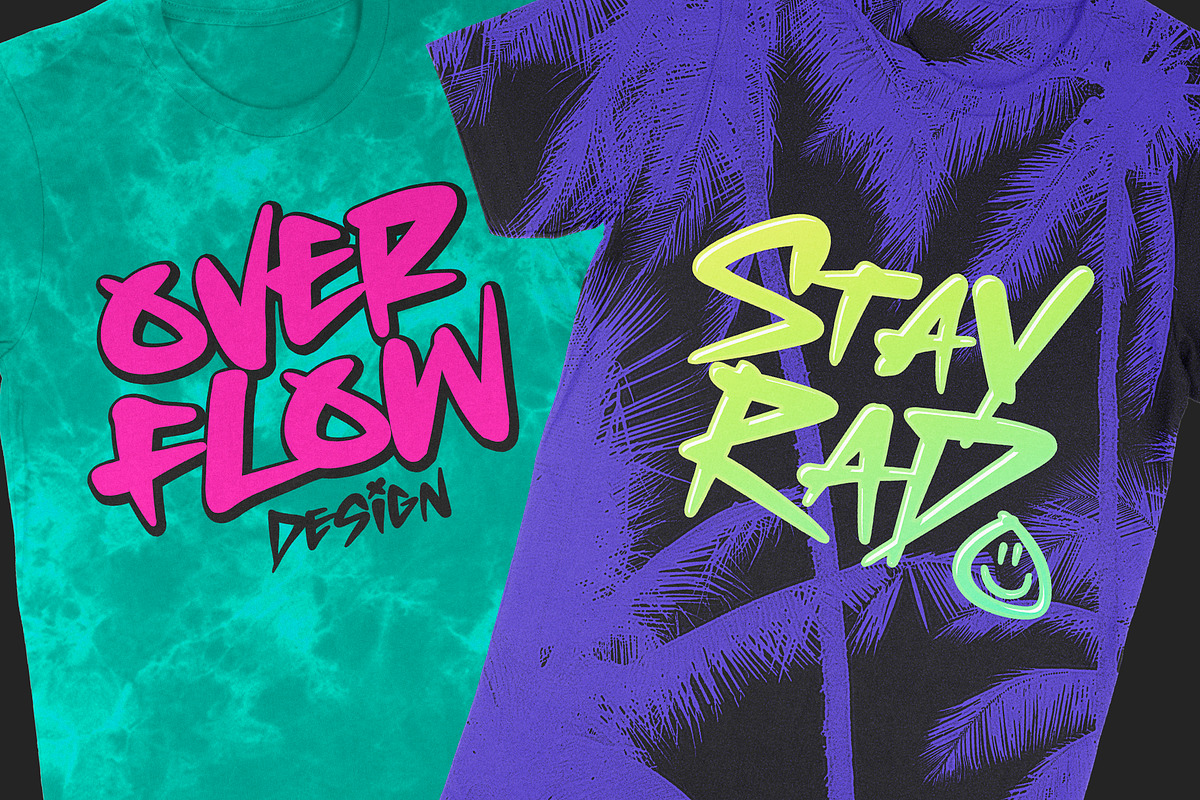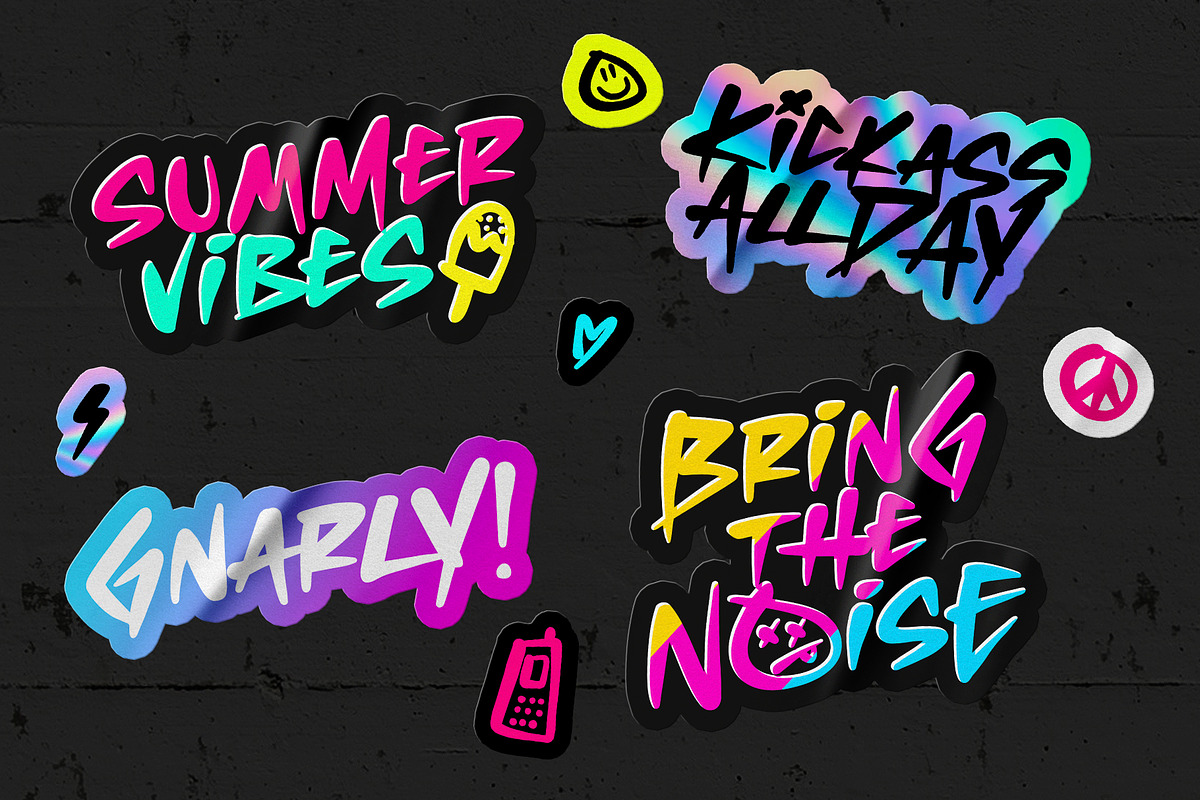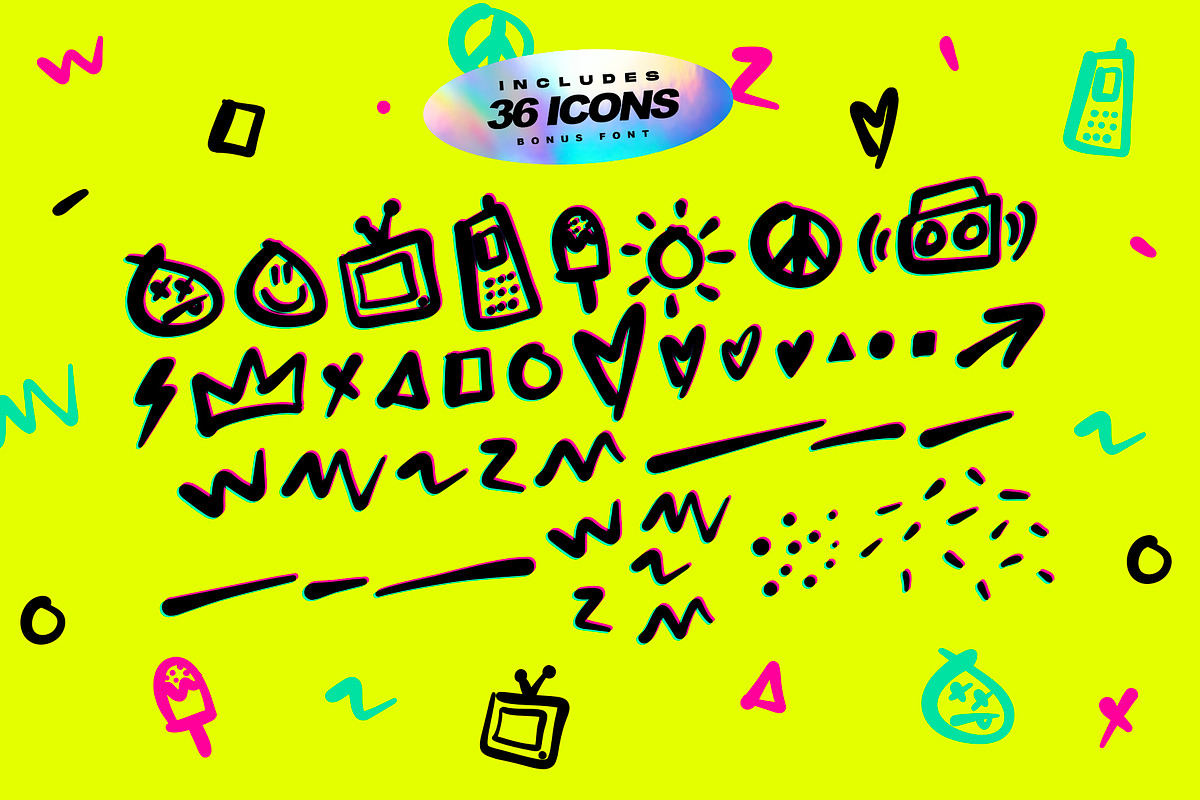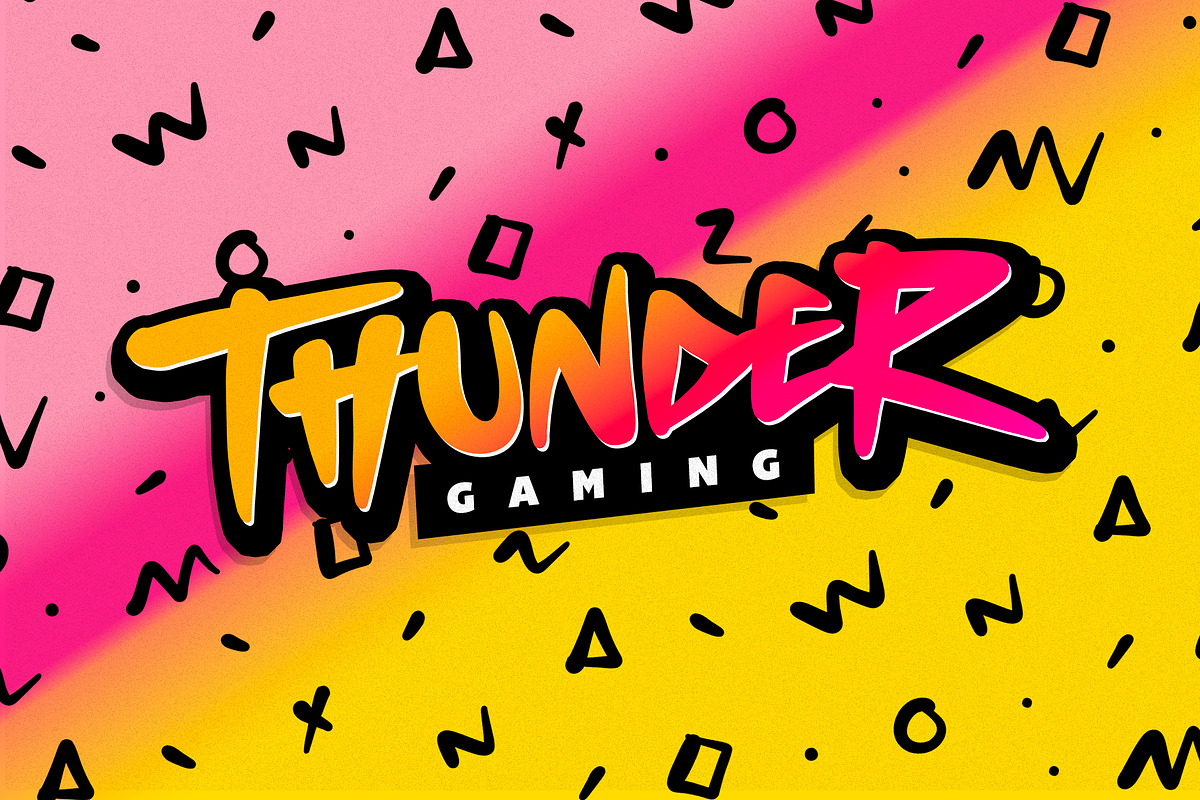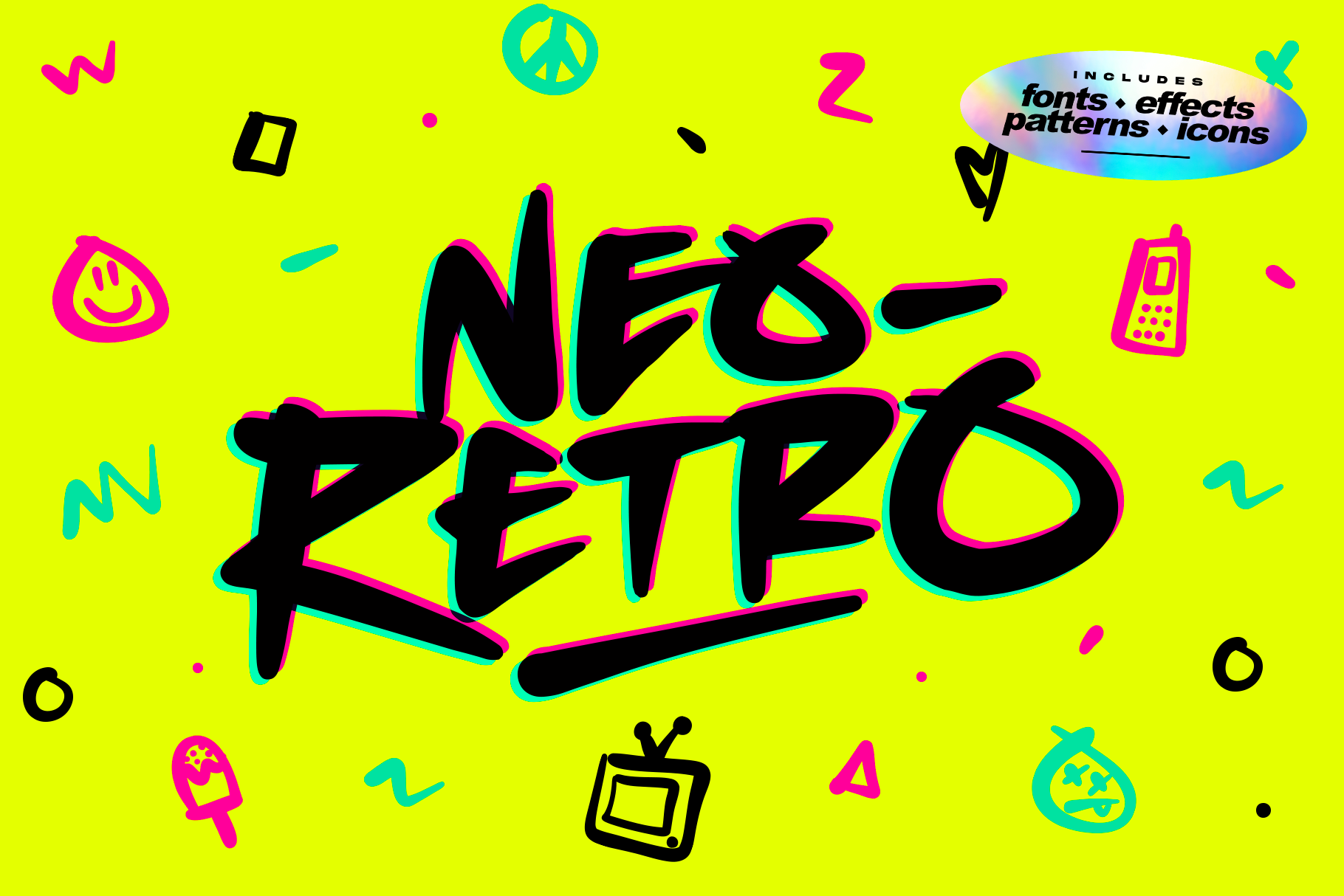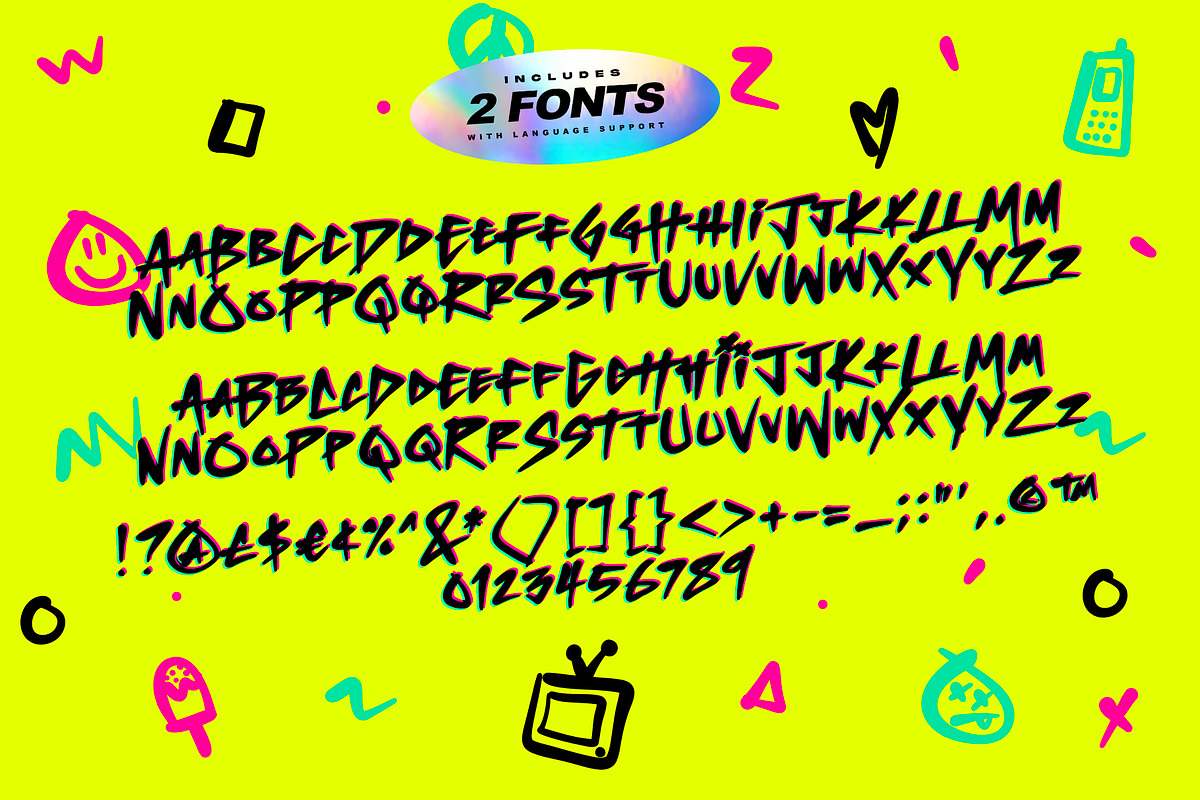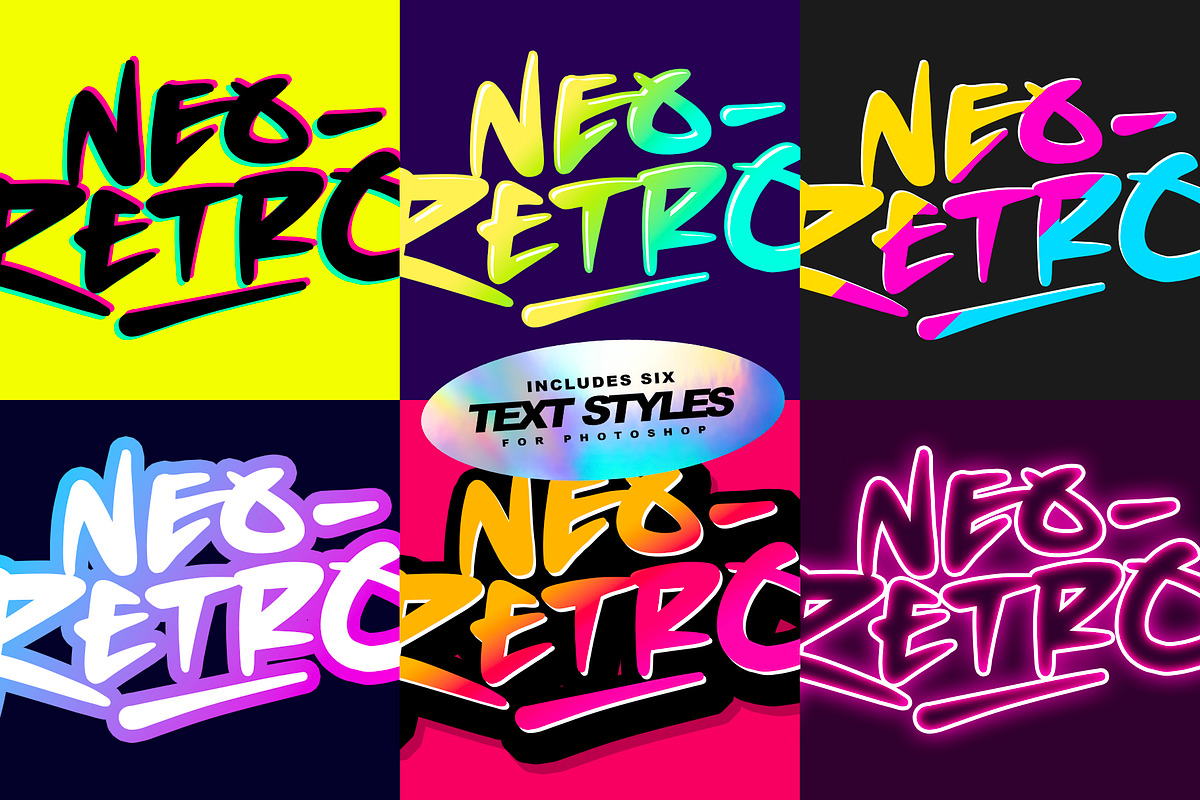
Neo-Retro Font + Extras
Bring some loud, bright, and nostalgic fun to your designs with the Neo Retro font pack! It's packed full of high energy design goodies including fonts, icons, text styles & patterns. Create bold, vibrant, 90s-inspired designs in just a few clicks—giving you more time to hang out at the mall, go to a drive-in, kick-ass at the arcade or go make the perfect mix-tape (you get the idea).
Here's a run through everything included in the product;
Neo Retro Font • A high energy font with clean edges and sharp ends. An all caps font, but with a larger and smaller variation included as upper and lowercase sets.
Neo Retro Alt Font • This is a second version of the Neo Retro Font, with a completely new set of upper & lowercase characters drawn in the same style. If you wanted to avoid letters looking the same each time to recreate a custom-made style, or try a different word shape, simply switch to this font for an additional layout option.
Neo Retro Icons Font • A set of 36 fun, hand-drawn icons designed to match with the Neo Retro font. Includes doodles, shapes, zig-zags, underline swashes & more. Simply install as a separate font and type any A-Z or a-j letter to generate an icon.